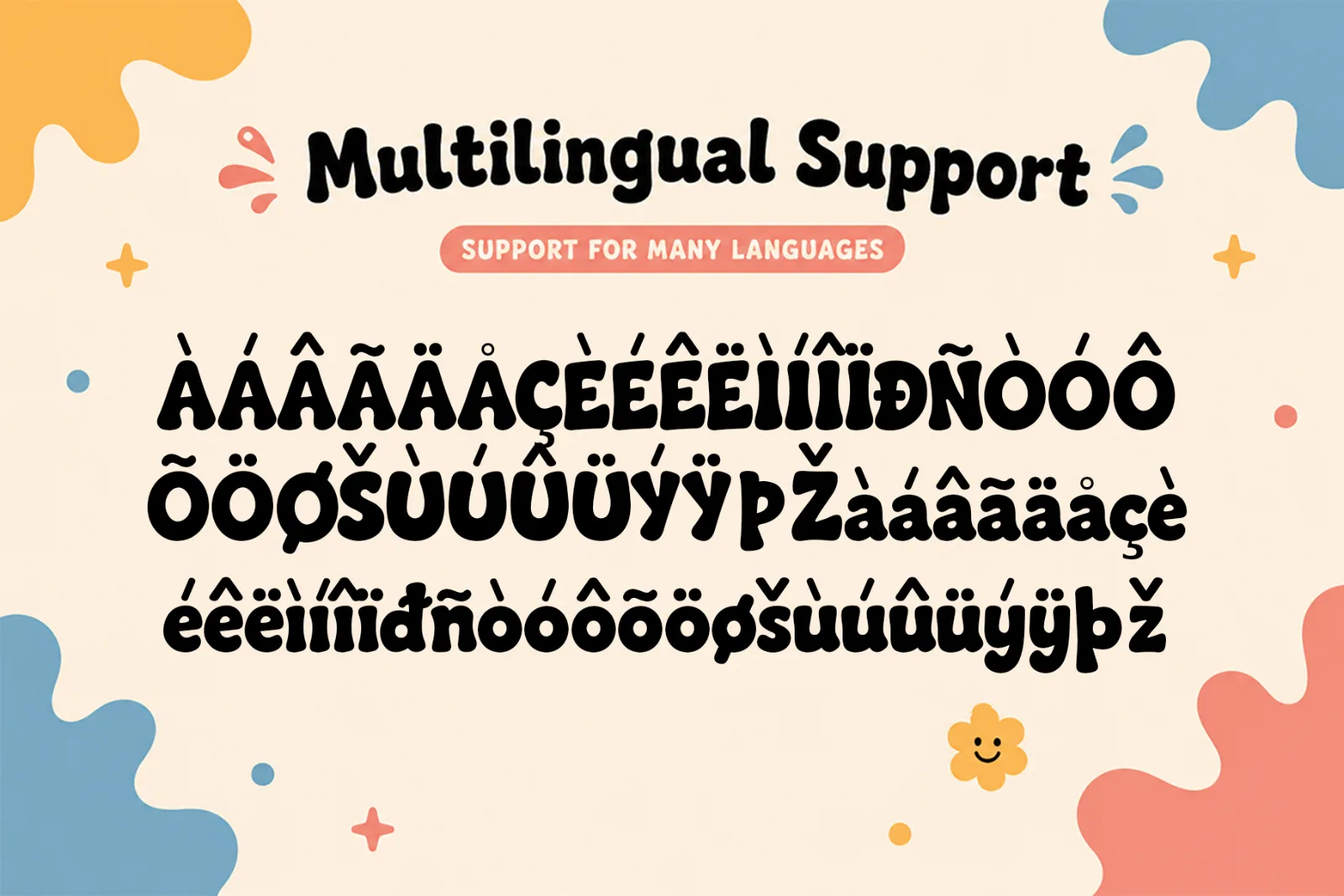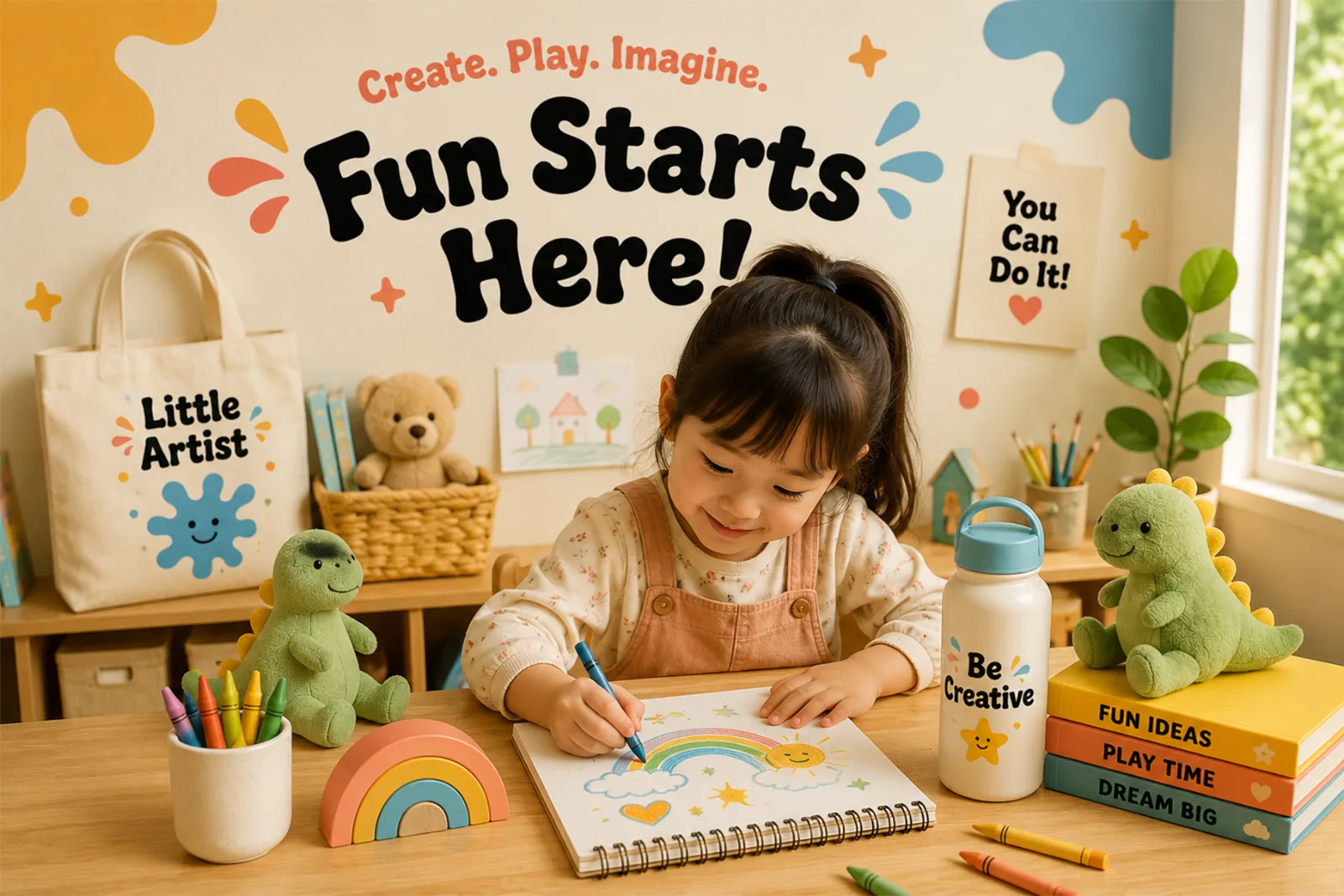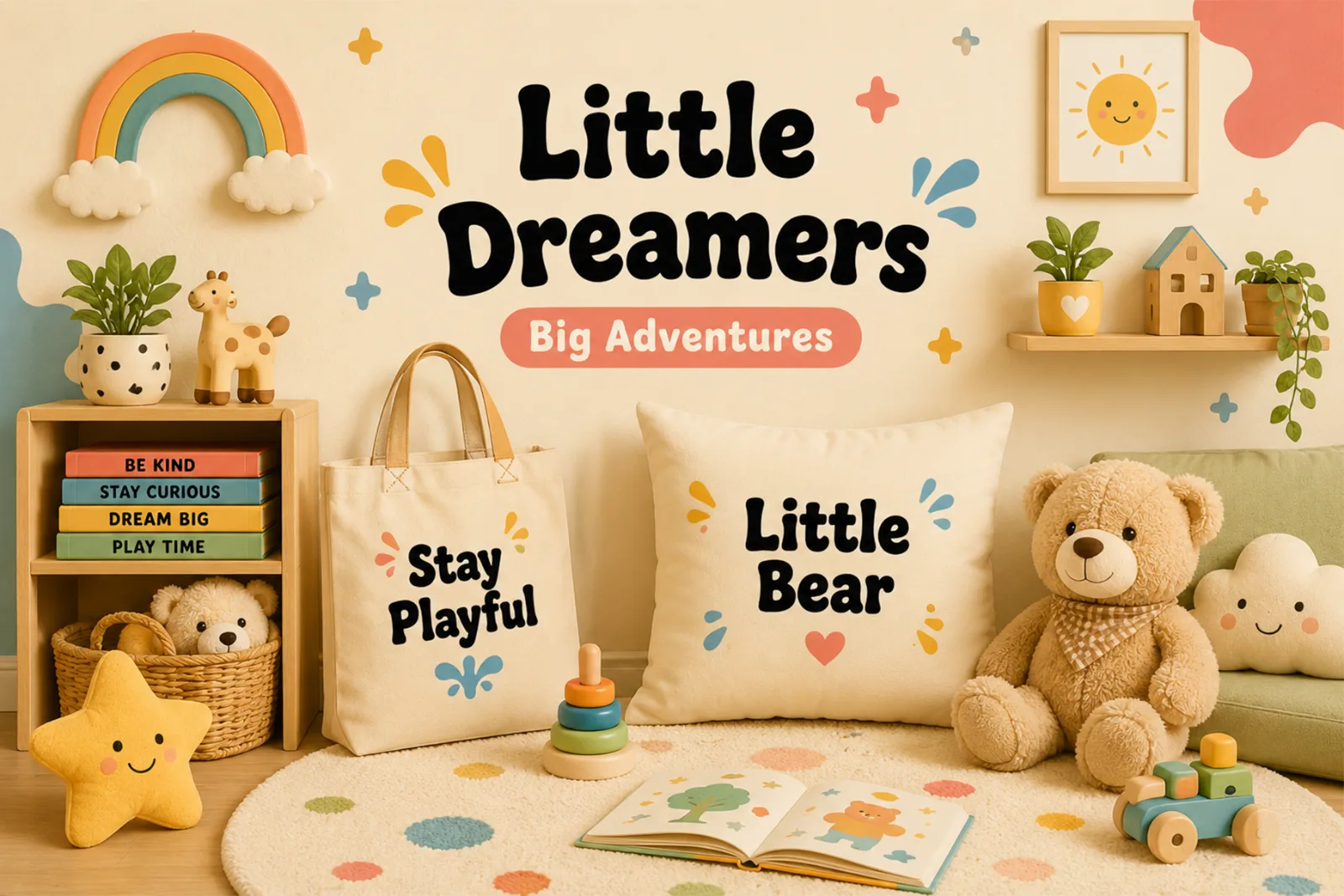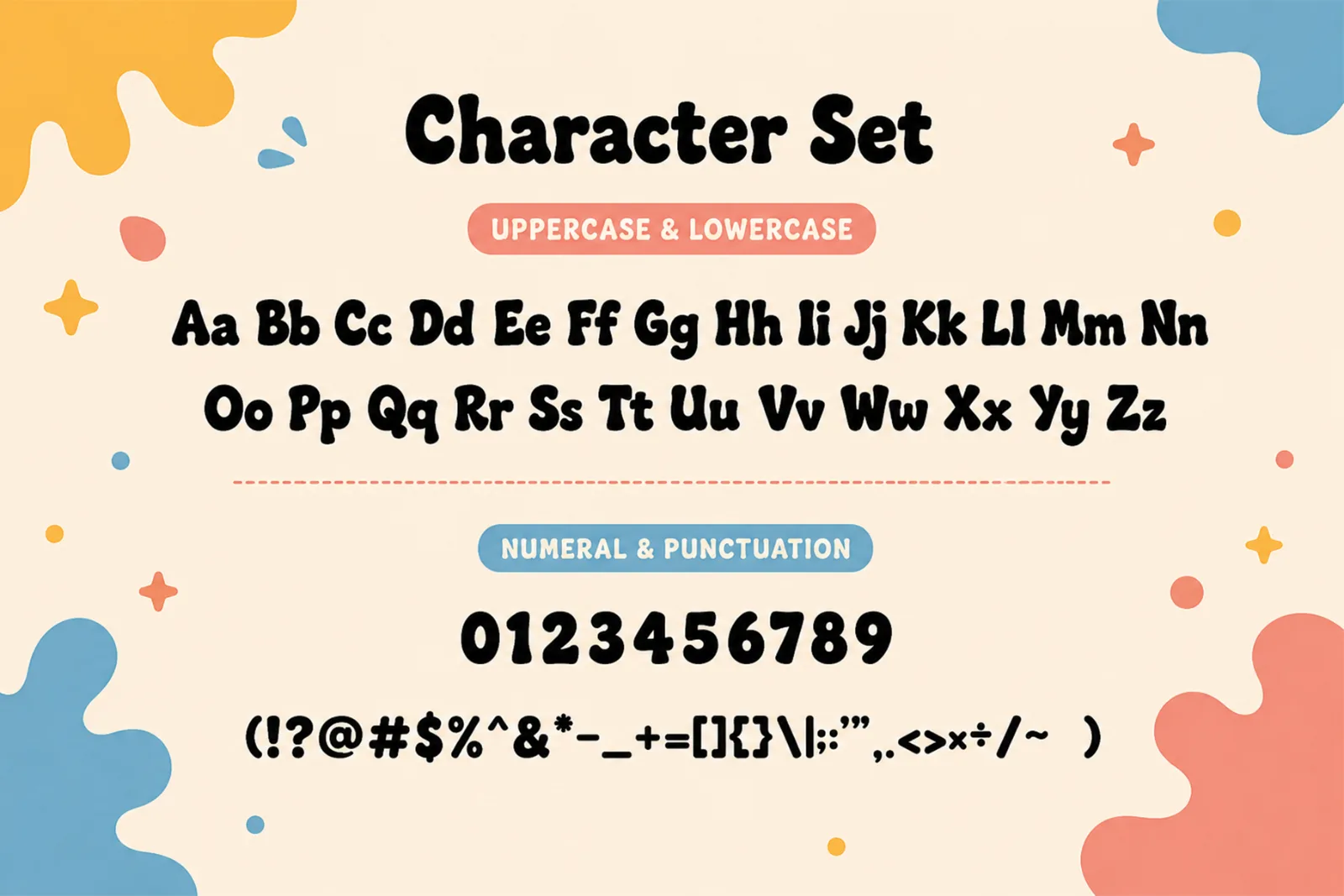
Popkin Splash – Playful Kids Display Font
Popkin Splash is a playful kids display font with bold rounded shapes, quirky proportions, and a cheerful personality. Its soft curves and lively character make every word feel fun, friendly, and easy to notice.
Designed for colorful and creative projects, Popkin Splash works beautifully for storybooks, toy packaging, educational materials, posters, stickers, merchandise, games, and playful brand identities.
Perfect for:
- Kids Branding
- Storybooks
- Toy Packaging
- Educational Materials
- Posters & Headlines
- Stickers & Labels
- Games & Apps
- Birthday Designs
- T-Shirts & Merchandise
- School Projects
- YouTube Thumbnails
- Social Media Graphics